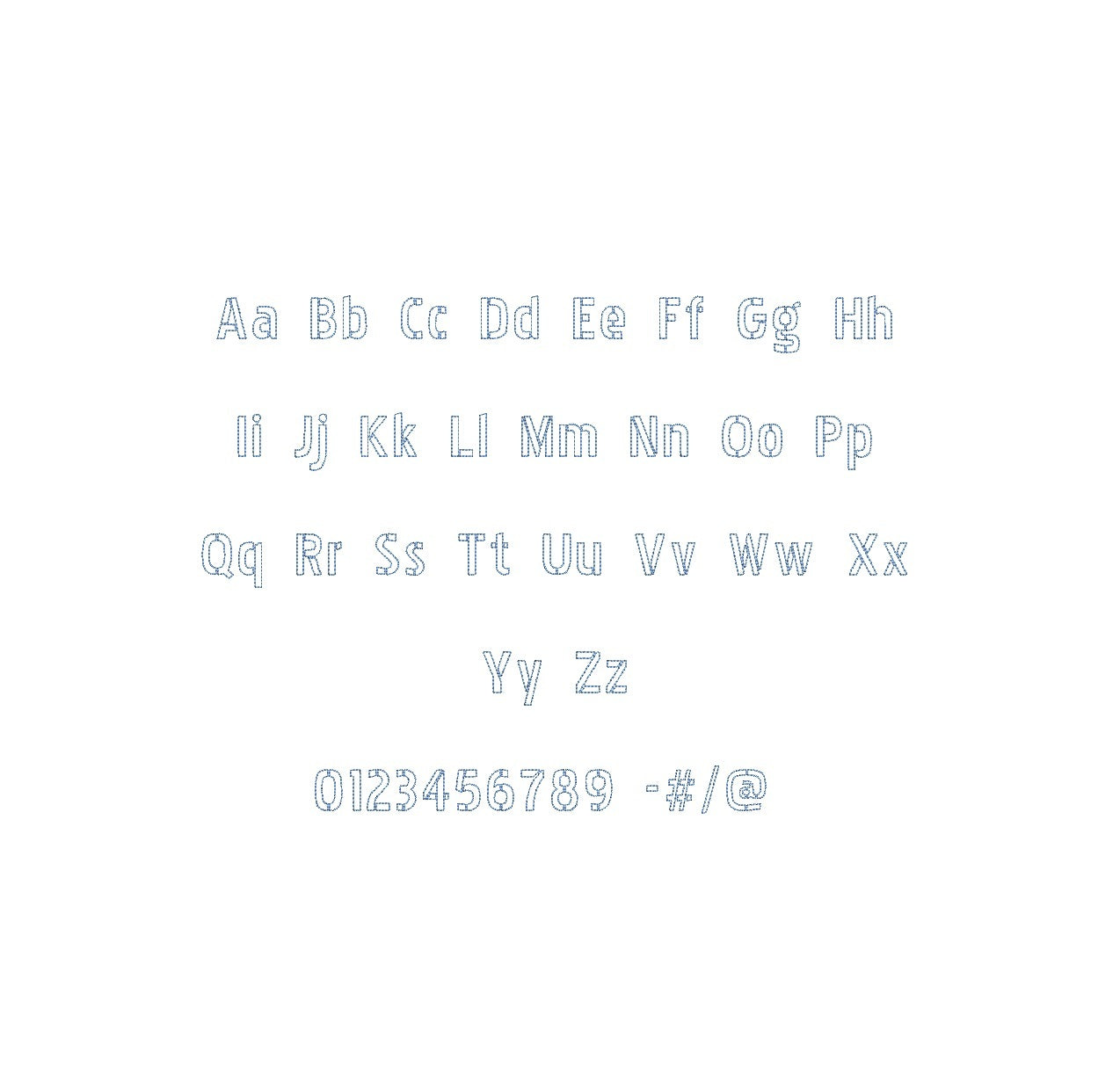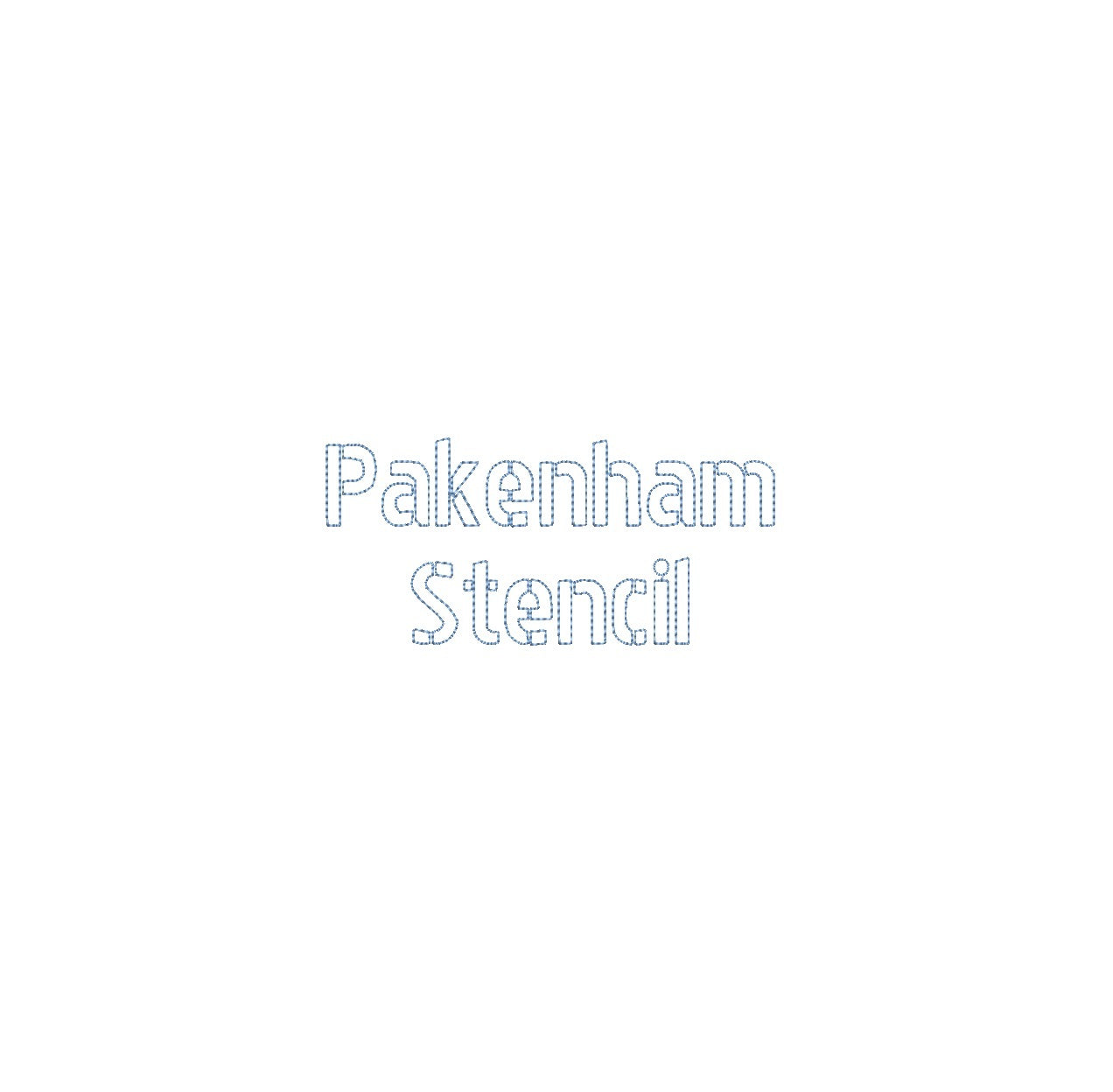
Elevate your embroidery with the Pakenham Stencil Bean Outline ESA font. Tailored for Wilcom Studio e4.5.6 and Hatch 3 versions and up, this font effortlessly fuses modern stencil elegance and precision. Infuse your designs with a unique aesthetic, perfect for contemporary monograms and embellishments. Experience seamless compatibility for exceptional results. Unleash a new level of stitching finesse with the Pakenham Stencil Bean Outline ESA font – your key to captivating designs that radiate sophistication. Transform your creations into embroidery masterpieces that reflect modern style. Elevate your projects with the Pakenham Stencil Bean Outline ESA font and make your embroidery truly remarkable.